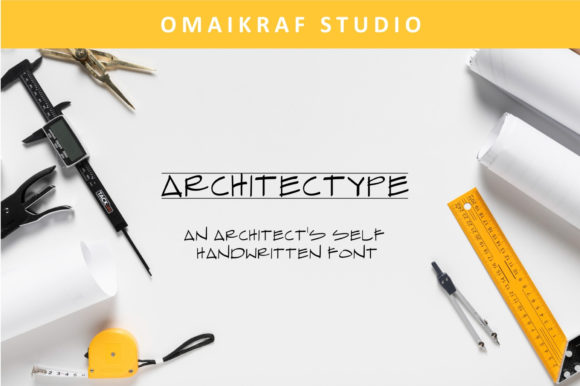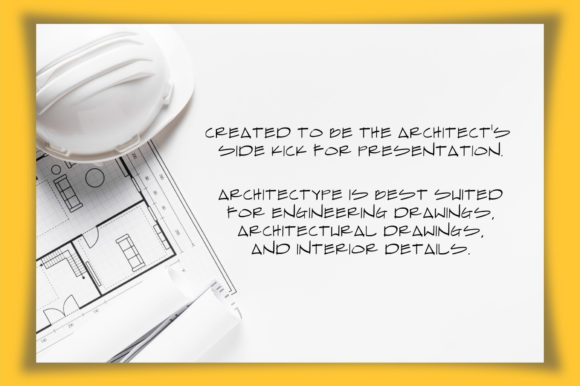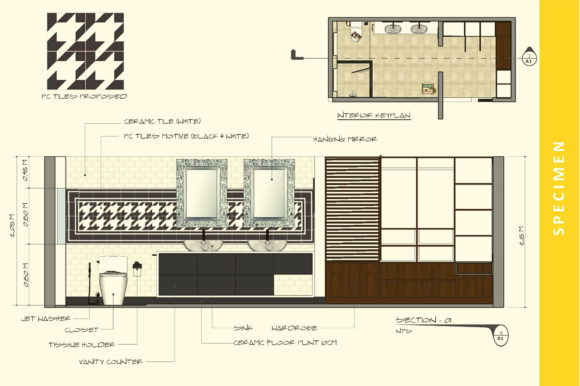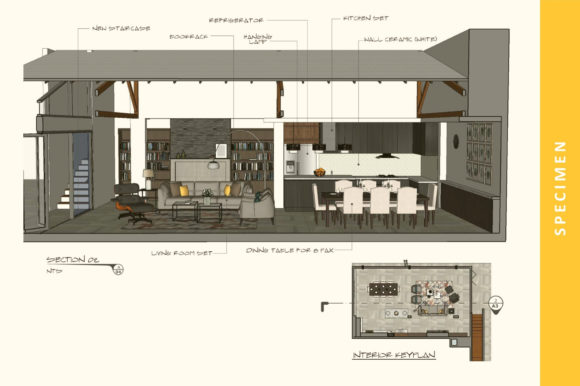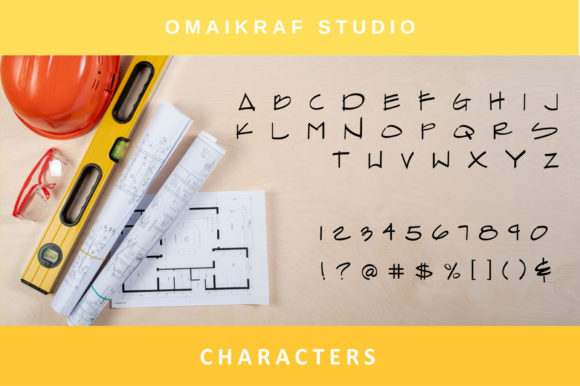
Architectype Font
About Architectype Font
Architectype is a natural and childish handwriting font. It is best suited to be used for engineering drawings, architectural presentations, and interior detail drawings. It has one character style that represent architect notes in uppercases.